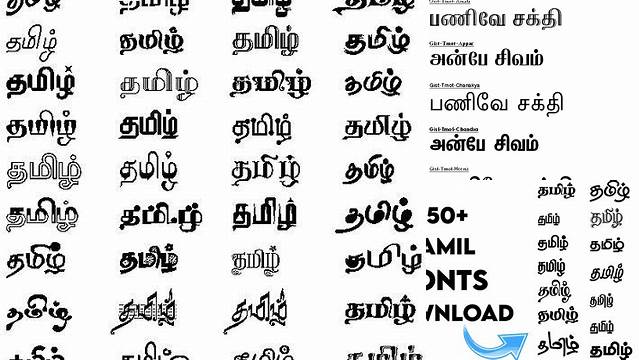
Stylish Tamil Fonts: PicsArt Download Guide
Hey guys! Ever wanted to add that extra oomph to your designs with some stylish Tamil fonts in PicsArt? You've come to the right place! This guide breaks down everything you need to know about finding, downloading, and using amazing Tamil fonts to elevate your PicsArt creations. Let's dive in!
1. Understanding the Importance of Font Choice in Design
Choosing the right font is super important in design. Seriously! Think about it: a font can make or break your message. It sets the tone, conveys emotions, and grabs attention. Stylish Tamil fonts are no different. They can bring a unique cultural flavor to your artwork, making it stand out and resonate with your audience. Imagine using a playful, modern font for a fun event poster versus a traditional, elegant font for a wedding invitation. The impact is HUGE! When selecting fonts, consider legibility, style, and how well it complements your overall design. Always test out different options to see what looks best and ensure your message is clear and impactful. Remember, the right font isn't just about aesthetics; it's about effective communication.
2. Where to Find Stylish Tamil Fonts
Okay, so where do you actually find these stylish Tamil fonts? Don't worry, I've got you covered. There are tons of resources online where you can discover a treasure trove of fonts. Websites like Google Fonts, FontSpace, and DaFont are great starting points. Google Fonts, in particular, offers a selection of open-source Tamil fonts that are free to use. Explore these sites, and you'll find everything from sleek, modern designs to traditional, ornate scripts. Be sure to check out sites that specialize in Indic fonts for a wider variety. While you're at it, keep an eye out for licensing information. Some fonts are free for personal use but require a commercial license for business projects. Knowing the rules ensures you're using the fonts legally and ethically. Happy font hunting!
3. Free Tamil Fonts for PicsArt
Who doesn't love free stuff, right? Finding free Tamil fonts for PicsArt is totally doable. Google Fonts is a goldmine here, offering a range of open-source Tamil fonts that you can use without spending a dime. FontSpace and DaFont also have selections of free fonts, but always double-check the license before downloading. Make sure it's truly free for your intended use, whether it's for personal projects or commercial work. Sometimes, fonts are free for personal use only, so reading the fine print is crucial. Using free fonts is a fantastic way to experiment and add flair to your designs without breaking the bank. Plus, it supports designers who are willing to share their creations with the world. Go forth and create amazing things with those free fonts!
4. Premium Tamil Fonts: When to Invest
Sometimes, free just doesn't cut it, and that's where premium Tamil fonts come in. Investing in premium fonts can really elevate your designs to the next level. These fonts often have more refined designs, broader character sets, and better support. If you're working on a professional project or want your designs to stand out from the crowd, premium fonts are worth considering. Sites like MyFonts and Adobe Fonts offer a wide range of high-quality Tamil fonts. Plus, they usually come with a commercial license, giving you peace of mind that you're using them legally for any purpose. Think of it as an investment in your brand and your creative work. When you use a premium font, it shows that you care about the details and are committed to quality.
7. Installing Tamil Fonts on iOS for PicsArt
Alright, iOS users, it's your turn! Installing Tamil fonts on your iOS device for PicsArt requires a little workaround because iOS doesn't natively support installing custom fonts like Android does. You'll need to use a font installer app from the App Store. Popular options include iFont, AnyFont, and Font Diner. Download and install one of these apps. Then, download the Tamil font file (usually in .TTF or .OTF format) to your device. Open the font installer app and import the downloaded font file. The app will guide you through the process of installing the font profile on your device. Once the profile is installed, the font should be available in apps like PicsArt that support custom fonts. Just remember to enable the font in the font installer app if necessary. Now, you're ready to add some stylish Tamil flair to your PicsArt creations on your iPhone or iPad!
8. Using Tamil Fonts in PicsArt: A Practical Guide
So, you've got your Tamil fonts installed – awesome! Now, let's talk about using them in PicsArt. Open PicsArt and start a new project or open an existing one. Tap on the "Text" tool to add text to your image. A text box will appear, and you can type in your Tamil text. To change the font, look for the font selection menu in the text tool options. Scroll through the list of fonts until you find the Tamil font you installed. Select it, and your text will magically transform into the stylish Tamil font you chose! From there, you can adjust the size, color, and other formatting options to make your text look perfect. Experiment with different fonts and styles to create eye-catching designs that truly stand out. Have fun and let your creativity flow!
9. Tips for Choosing the Right Tamil Font for Your Project
Choosing the right Tamil font can feel overwhelming with so many options. Here are a few tips to help you make the perfect choice for your project. First, consider the tone and message of your design. Is it formal or informal? Playful or serious? Choose a font that reflects the overall mood you're trying to create. Think about legibility too. A beautiful font is useless if no one can read it. Make sure the font is clear and easy to read, especially in smaller sizes. Also, consider the cultural context. Some Tamil fonts have a more traditional feel, while others are more modern. Choose a font that respects and reflects the cultural heritage of the Tamil language. And finally, don't be afraid to experiment! Try out different fonts and see what looks best with your design. Trust your instincts and have fun with it!
30. Future Trends in Tamil Font Technology
The world of Tamil font technology is constantly evolving, and there are many exciting trends on the horizon. One trend is the increasing use of variable fonts, which allow for dynamic adjustments to font weight, width, and other parameters. This opens up new possibilities for customization and personalization. Another trend is the development of more AI-powered font design tools that can assist designers in creating unique and visually stunning fonts. We may also see the emergence of new types of fonts that are specifically designed for virtual reality and augmented reality environments. As technology continues to advance, the future of Tamil font technology is bright with possibilities.